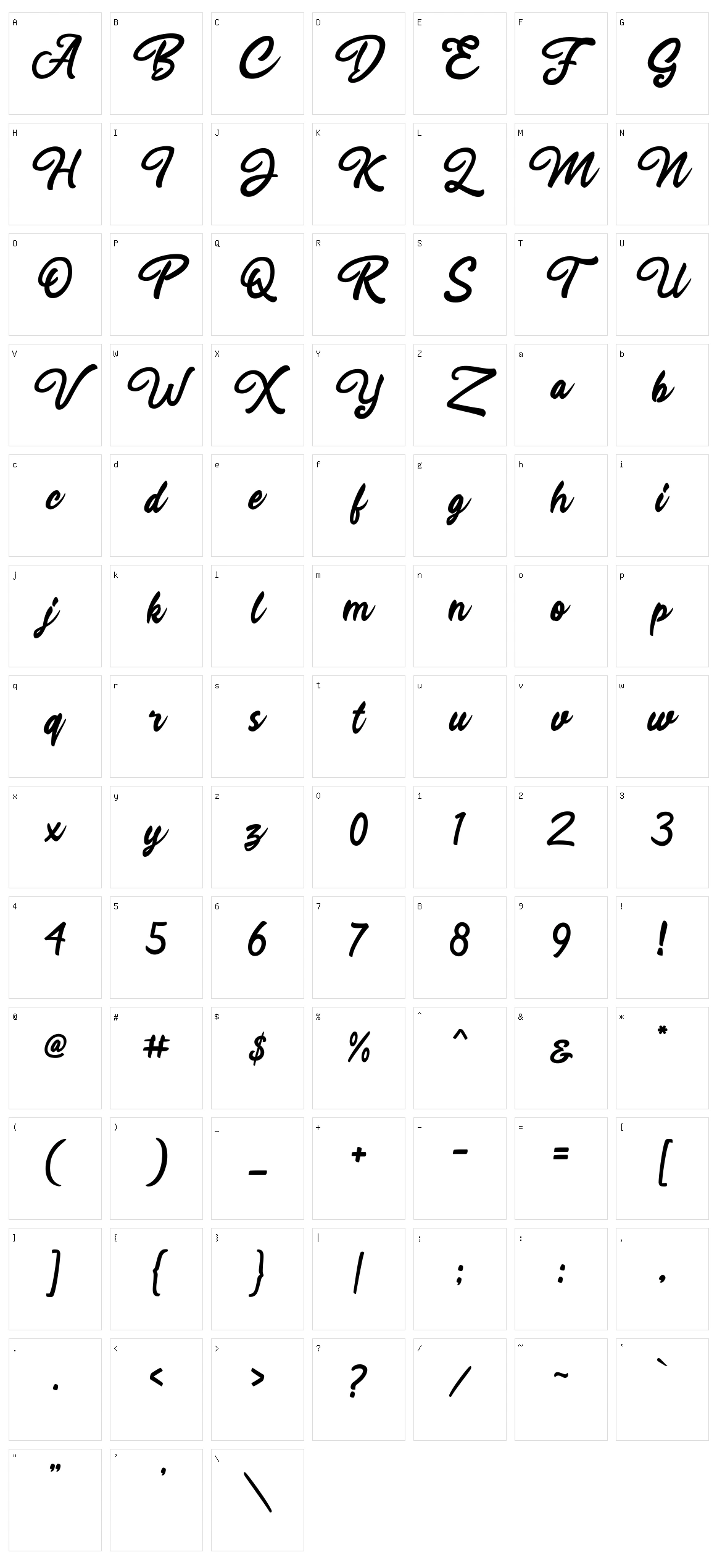
The free font Rahayu Script is carefully designed by Rudhi Sasmito, showcasing a thoughtful balance of creativity and usability and falls under the Old-School font style. When you download the ZIP file, it contains only 54.95 KB of font files, making it lightweight and quick to download. Please review the license details below to understand permitted usage and distribution rights. If license information is not available, we recommend using this font for personal projects only or contacting the author directly for commercial usage permissions.